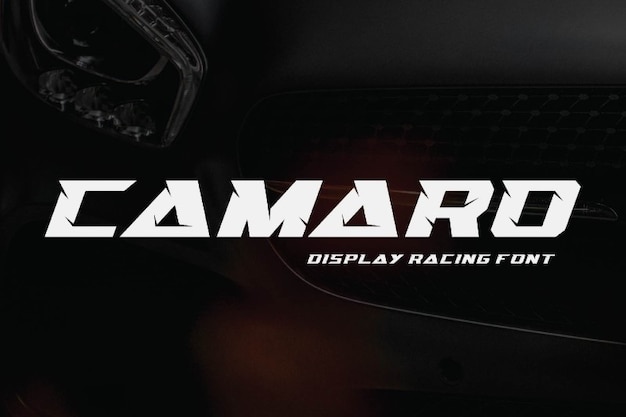
Camaro Font
"Camaro" font revs up the design track with its bold, rugged style inspired by off-road racing. Each letter echoes the toughness of tires and the speed of sports, perfect for conveying the adrenaline rush of motorsport. Ideal for posters, branding, or event promotions, "Camaro" brings the spirit of the race to life, leaving competitors in the dust.